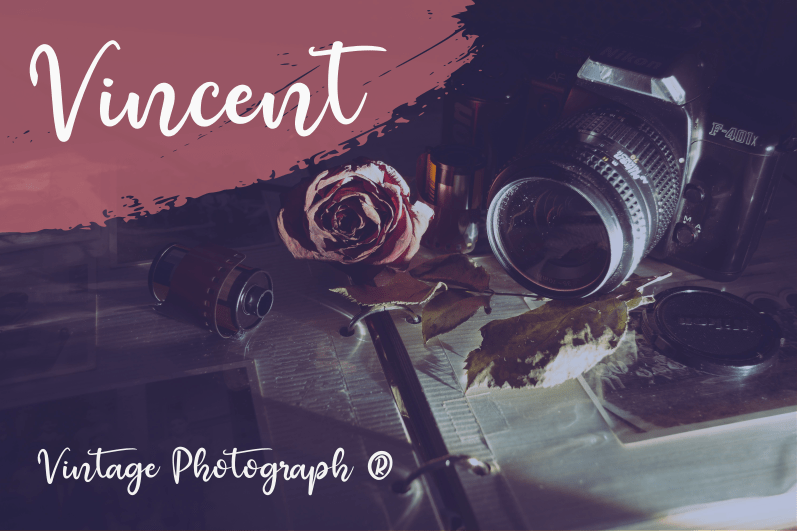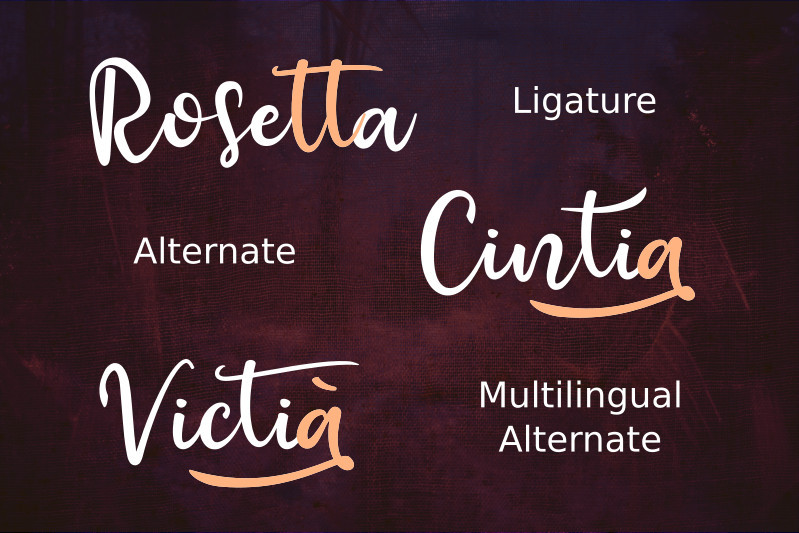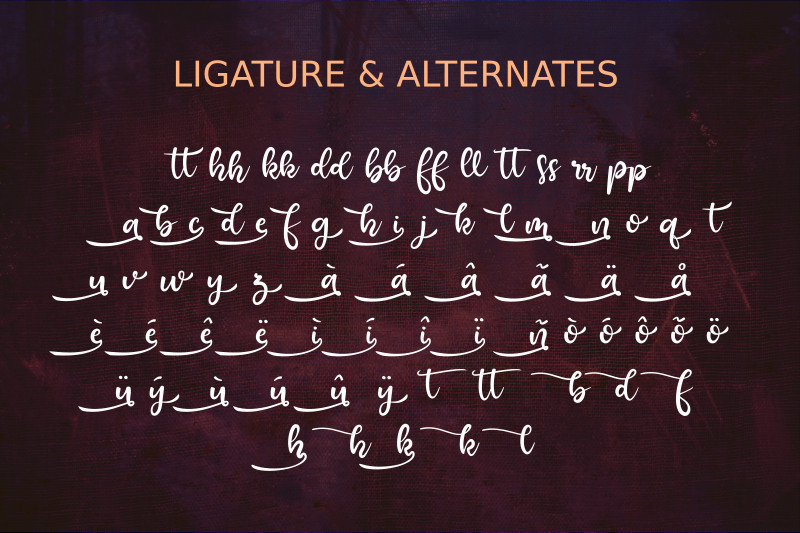
Raquen Script Font is a clean, elegant, beautiful and simple font it can be incorporated into many designs including quotes text, book cover, logos, wedding invitations, posters and many more.